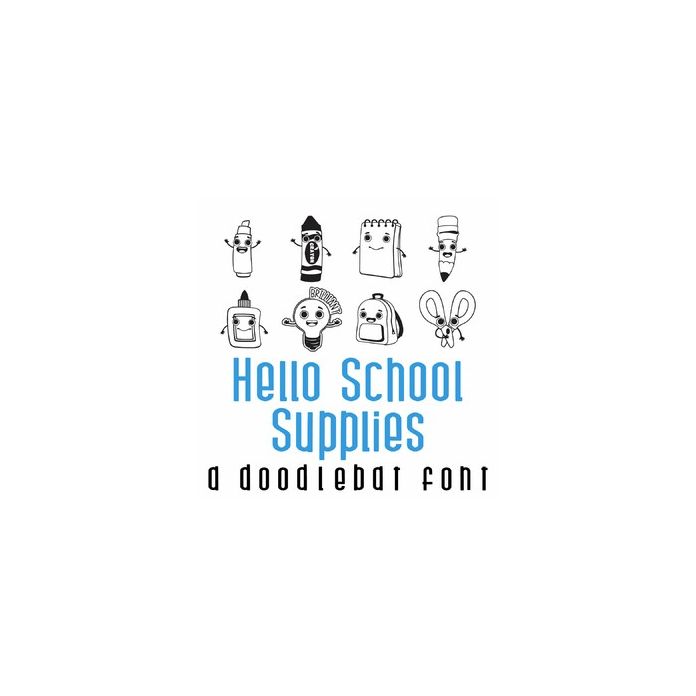
This adorable doodlebat font features 26 hello school supplies and stickers. Perfect for classrooms, teachers, parties, decor, card making, planner stickers, scrap book pages and more!